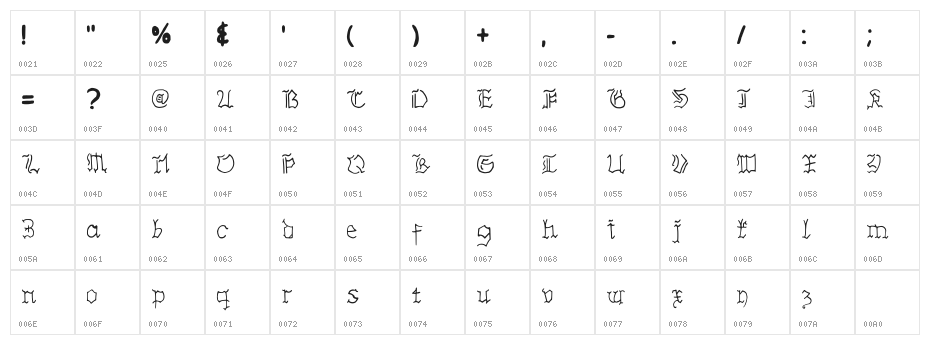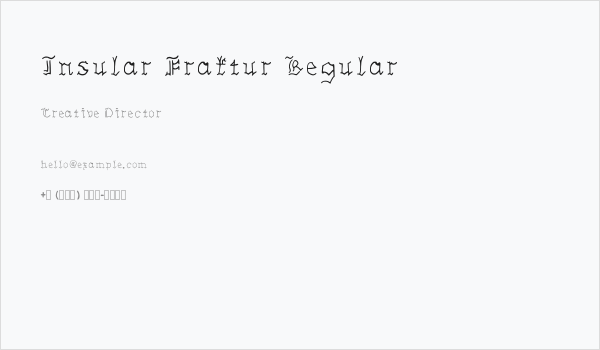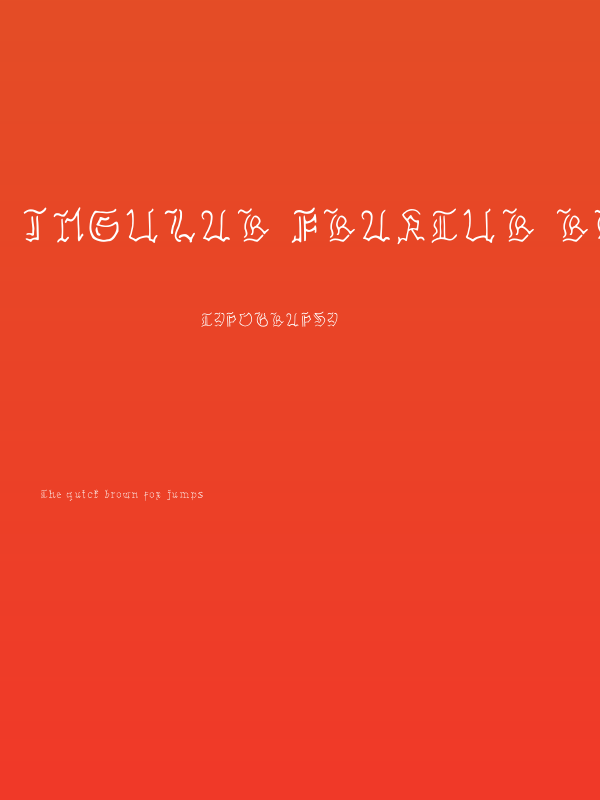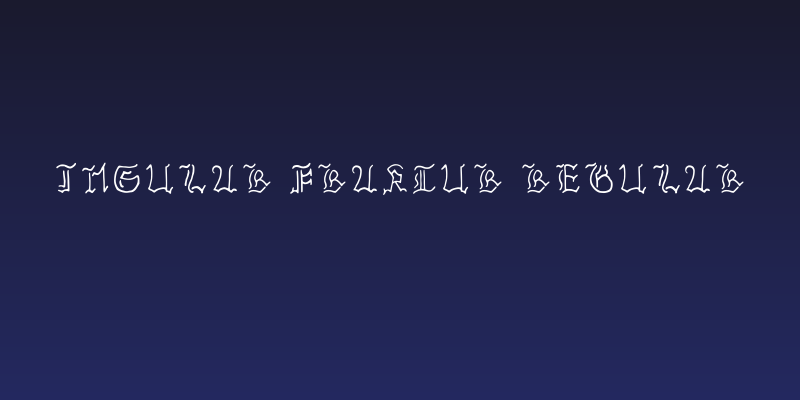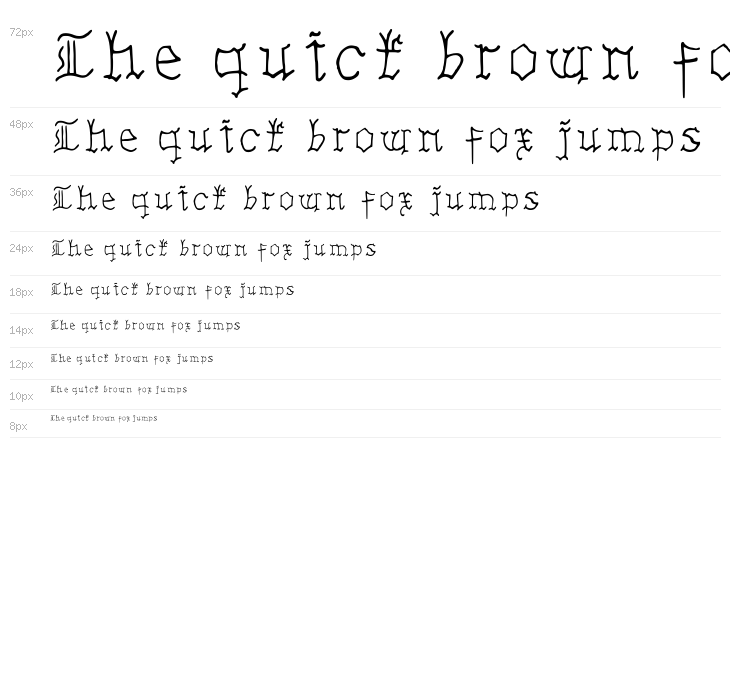
Insular Fraktur Regular Font
Insular Fraktur Regular Description
This font embodies the traditional and intricate style of blackletter typography, characterized by its ornate and angular letterforms. The uppercase letters are bold and commanding, with sharp edges and elaborate flourishes that give them a historic and formal appearance. The lowercase letters maintain the same intricate detailing, with a slightly more condensed form that complements the uppercase. The numbers and special characters are designed to match the overall aesthetic, featuring similar angular strokes and decorative elements. This font is reminiscent of medieval manuscripts and is perfect for projects that require a touch of historical elegance.
Overall StyleVintage
Use CaseLogos, Headlines, Decorative text
Proposed ProjectsIdeal for historical documents, certificates, book covers, and branding that requires a medieval or gothic touch.